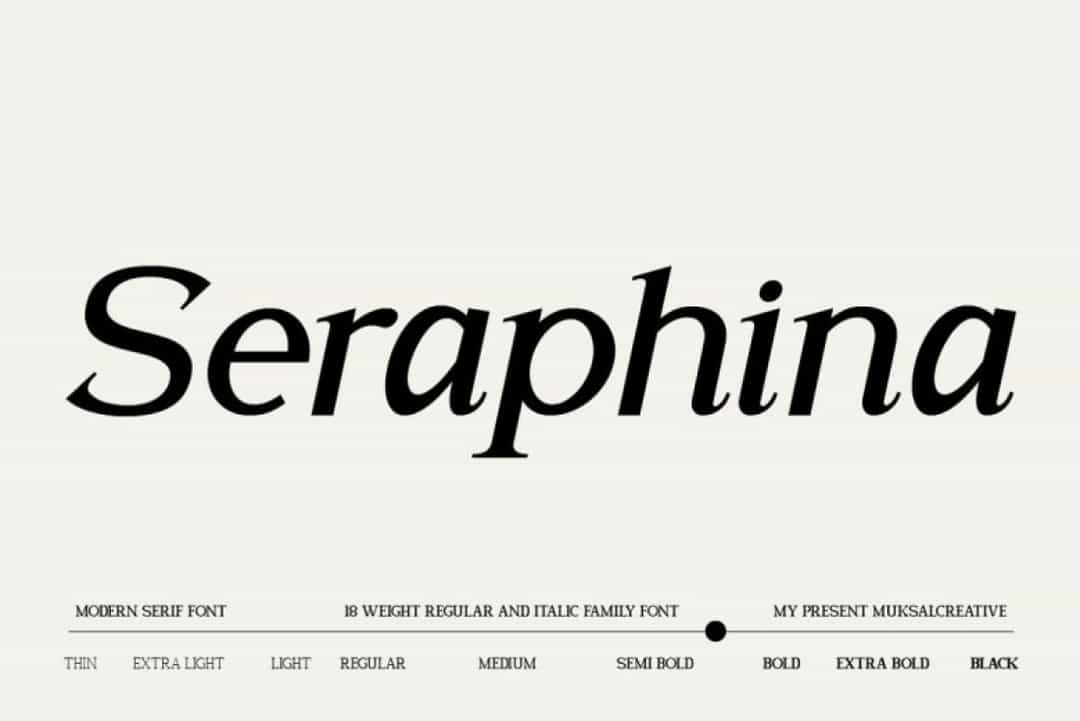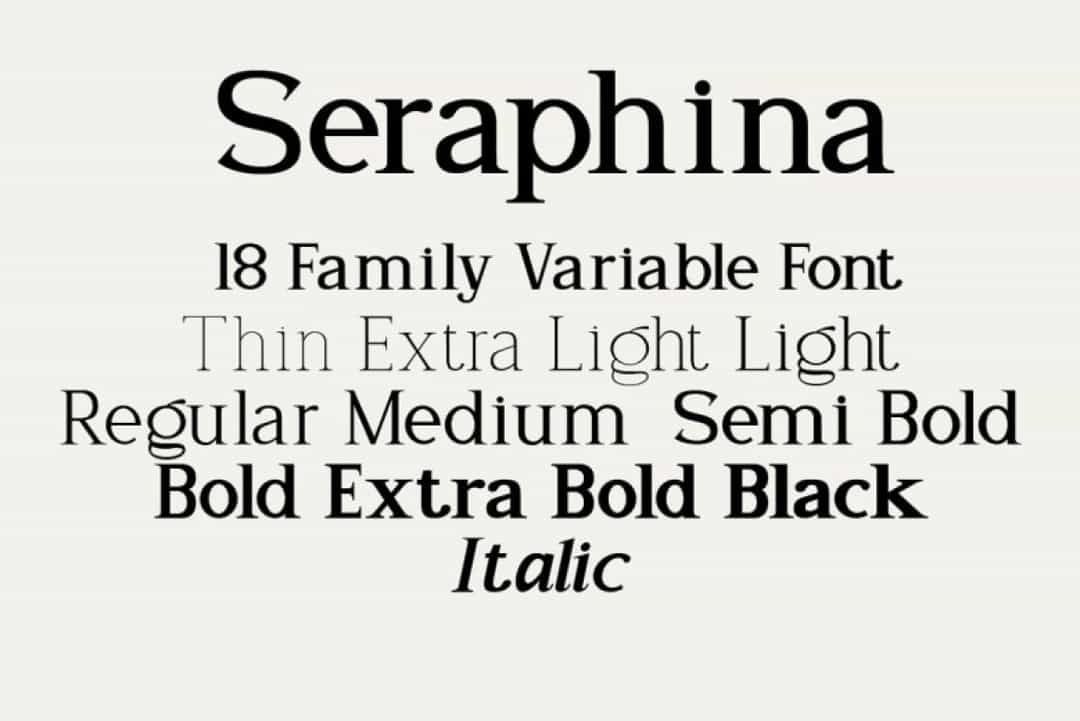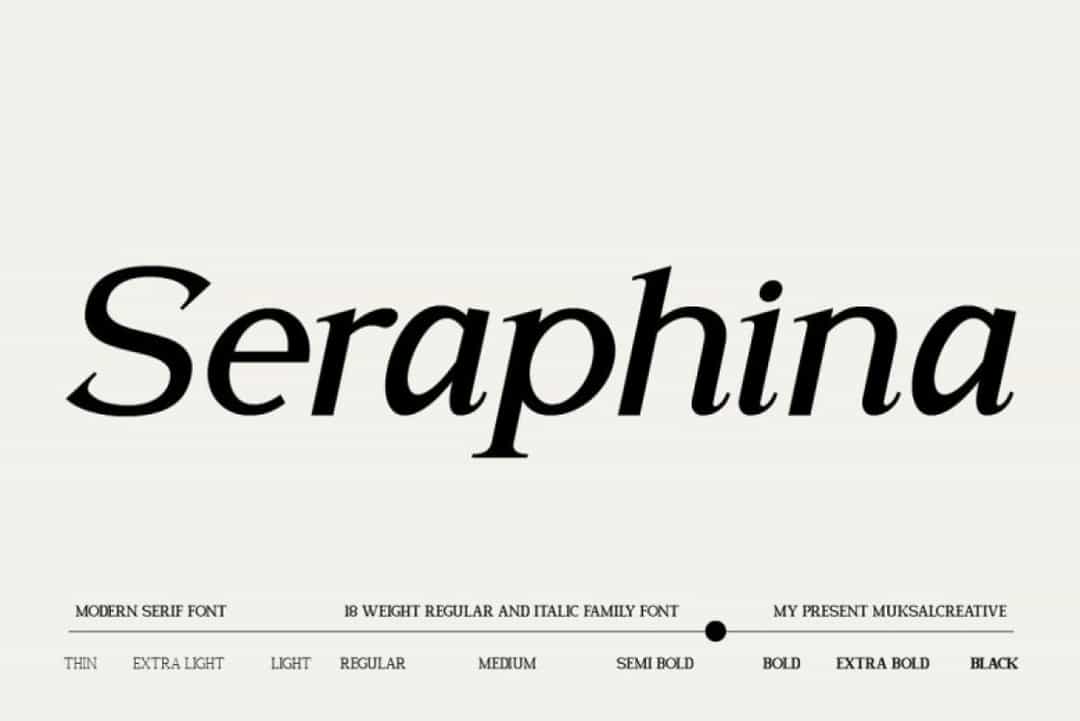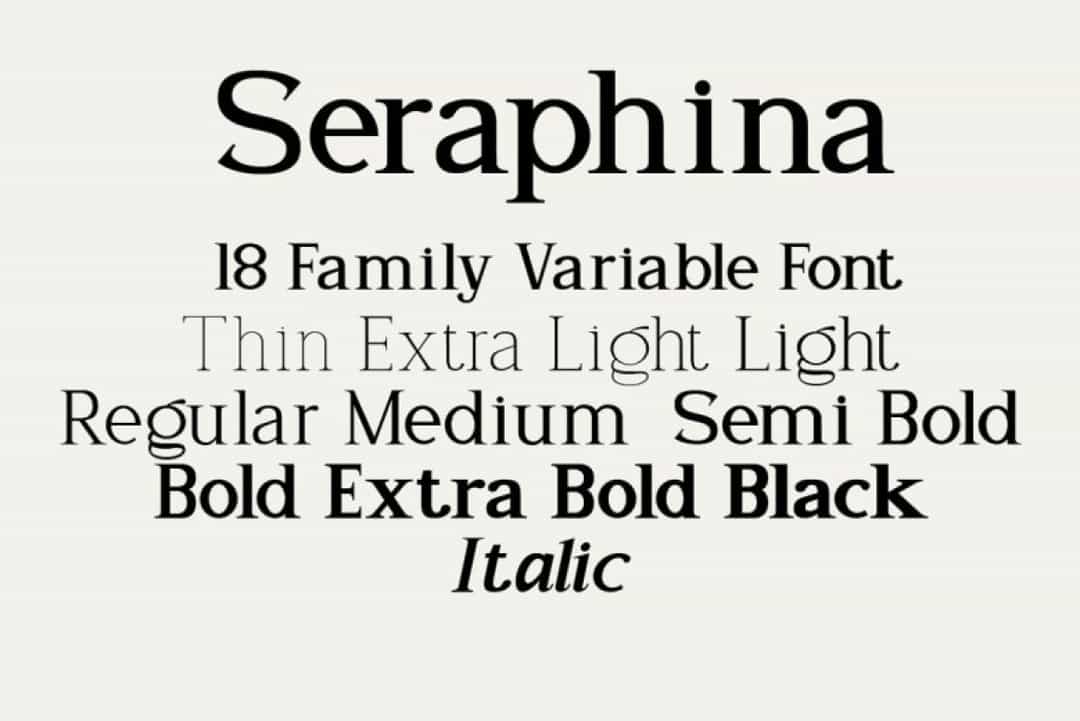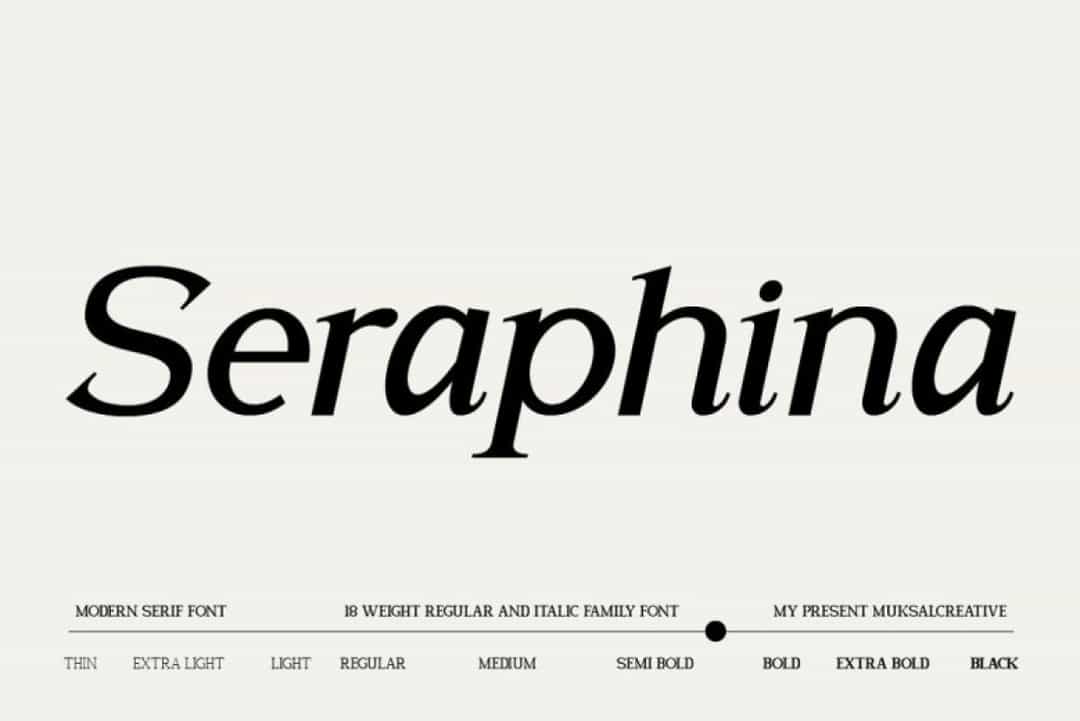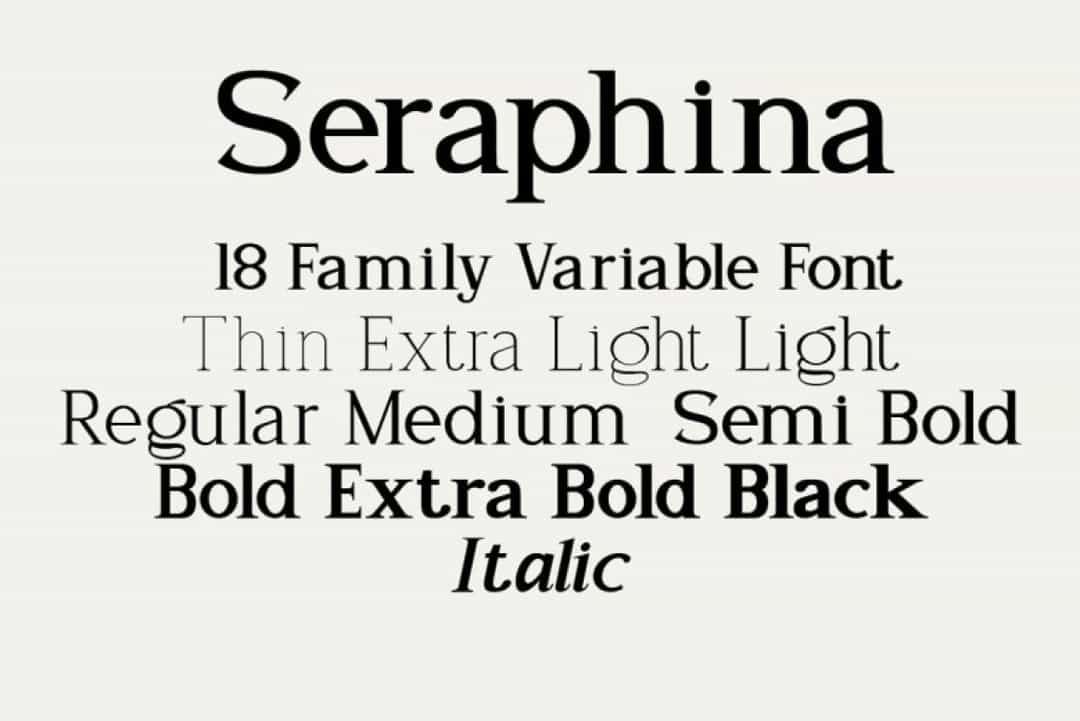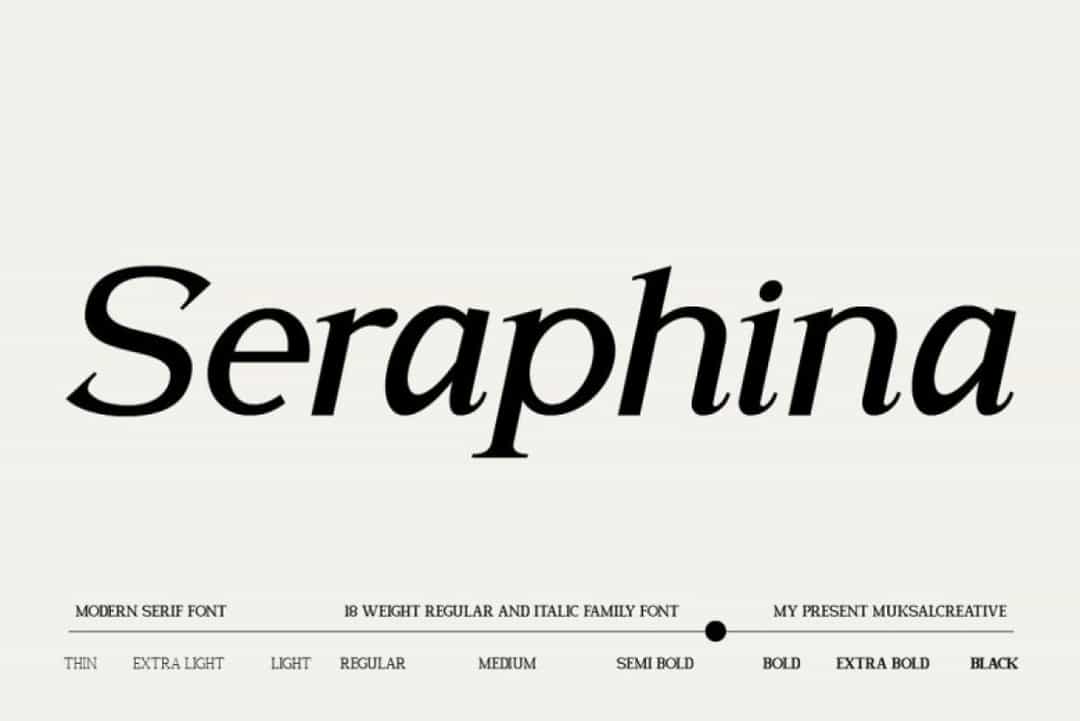
Seraphina is an elegant serif typeface available in 18 different styles, from delicate “Thin” to the strikingly eye-catching “Black”. Each style includes italic options to expand design options further and its sophistication makes an eye-catching impression – perfect for brands aiming for prominence or fashion trends trying to convey sophisticated yet distinctive messages.